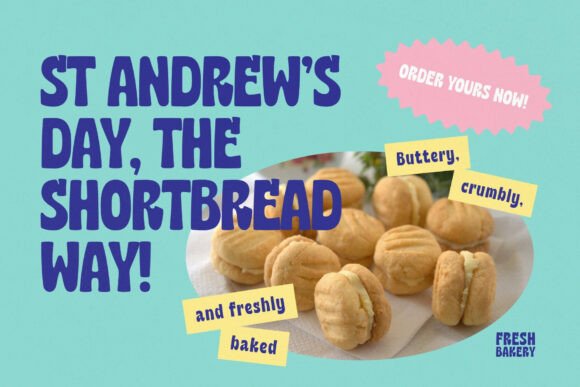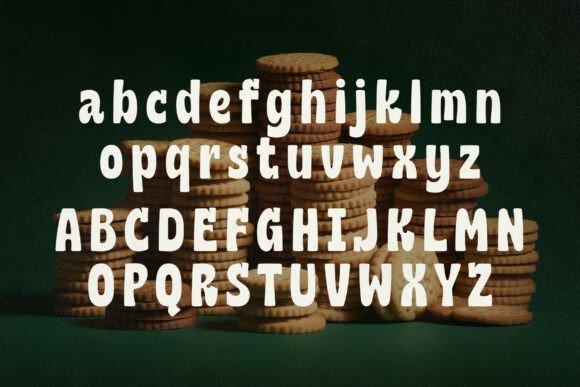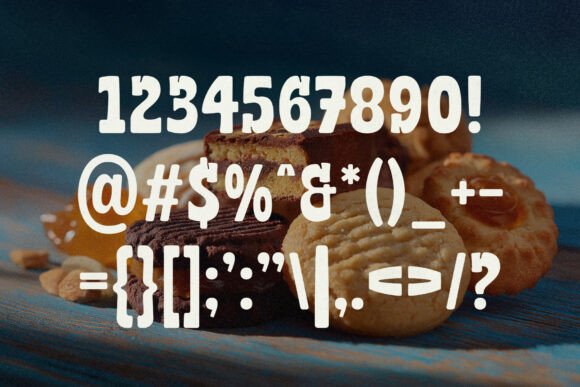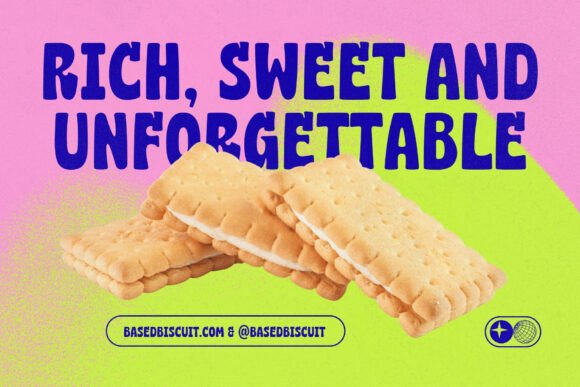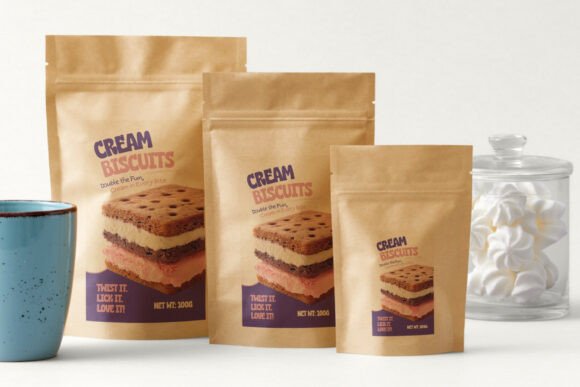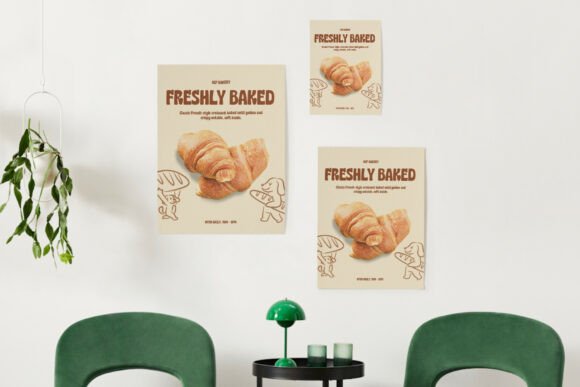
Introduction to Biscuit Munch Font
As you’re browsing through design inspiration, have you ever stumbled upon a font that instantly puts a smile on your face? That’s exactly what happens when you come across the Biscuit Munch Font. Its playful charm and whimsical feel can transport you to a cozy café or a bustling bakery, making you crave for a freshly baked treat. But beyond its irresistible snack-time appeal, this delightful display font is a valuable resource for designers looking to add a touch of warmth and personality to their creative projects.
Whether you’re working on a branding project for a café, designing packaging for a bakery, or creating social media graphics for a foodie brand, the Biscuit Munch Font is the perfect companion. Its high-quality design and transparent background make it a free download that’s easy to use and customize, giving you the freedom to experiment with different styles and ideas.
Key Features of Biscuit Munch Font
- Unique, hand-drawn design suitable for creative projects and branding materials.
- High-quality, scalable font with a transparent background, ideal for use on a variety of backgrounds.
- Customizable and editable, allowing users to easily personalize the font to suit their specific design needs.
- Resolution-independent, ensuring that the font remains crisp and clear at various sizes and resolutions.
- Designed with a playful, whimsical feel, making it perfect for adding a touch of personality to any creative project.
Honest Review: Biscuit Munch Font
As a designer, I’m always on the lookout for high-quality design resources to enhance my creative projects. Recently, I stumbled upon the Biscuit Munch Font, which I’ll be sharing my honest review of.
- ✨ The font has a unique, playful design that’s perfect for adding a touch of whimsy to a project.
- ✨ The font comes with a transparent background, making it easy to use on any design surface.
- ⚠️ The font is a bit limited in terms of customization options, which may not be ideal for designers who require more flexibility.
- ⚠️ The font may not be suitable for formal or professional projects due to its playful nature.
Overall, I’m impressed with the Biscuit Munch Font’s unique design and ease of use. While it may not be perfect for every project, it’s an excellent addition to any designer’s toolkit, especially for creative projects that require a touch of personality.
Tips for Getting the Most Out of Biscuit Munch Font
To maximize the potential of this font, experiment with different font sizes, colors, and effects. Use it in combination with other design elements to create a visually appealing and cohesive design. Don’t be afraid to push the boundaries and try new things – the Biscuit Munch Font is a versatile design resource waiting to be explored.
The Biscuit Munch Font is ideal for a variety of creative projects, including graphic design, digital art, and even web design. Its unique design and high-quality rendering make it perfect for use in logos, branding materials, and marketing collateral.